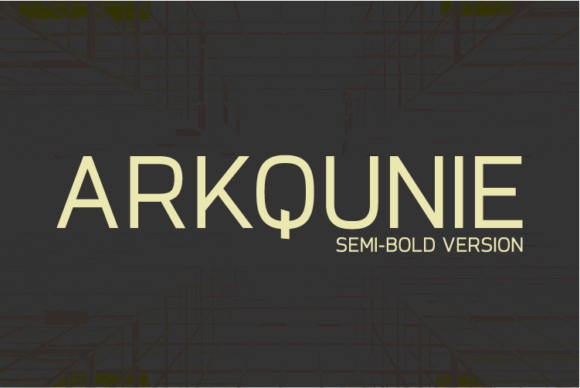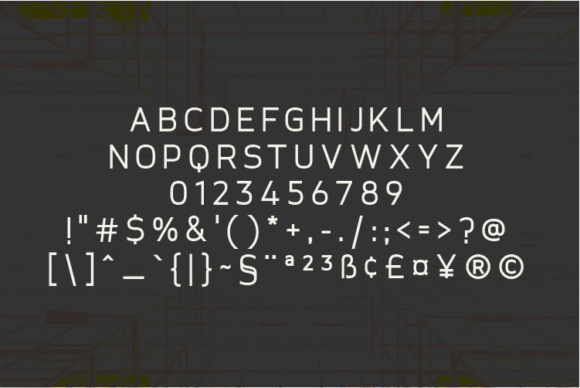
Arkqunie Semi-Bold Font
About Arkqunie Semi-Bold Font
Arkqunie is a casual and geometric sans serif typeface with maximum flexibility. It has special features in every corner of each letter that make Arkqunie perfect for headlines, postcards, business cards, logos, letterheads, magazines, posters, and much more!